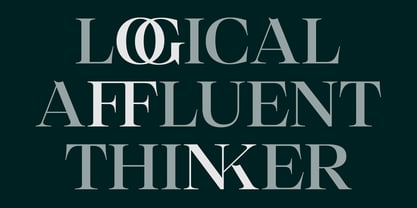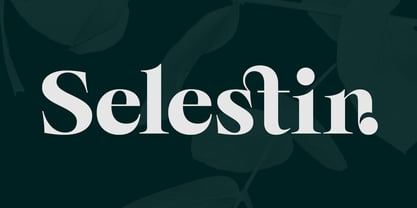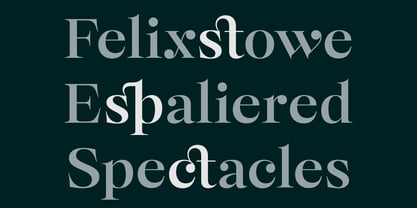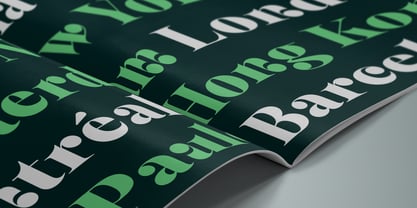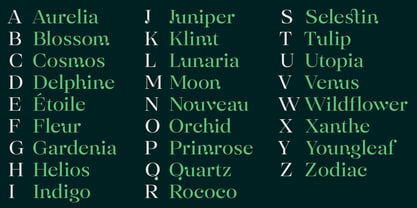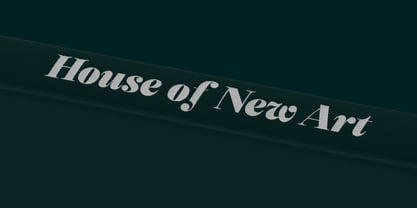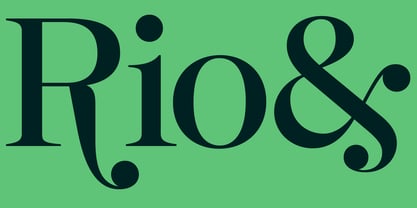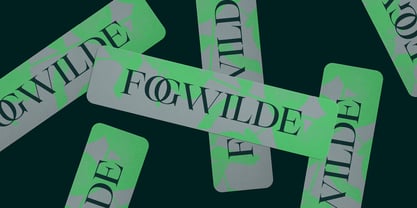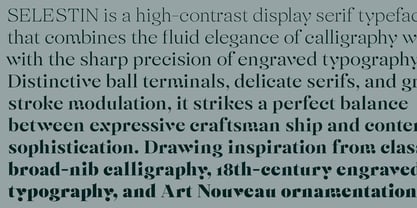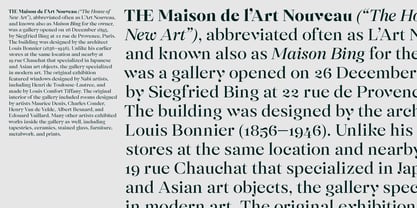
Selestin
by The Northern Block
The Selestin Font Family was designed by Tasos Varipatis and published by The Northern Block. Selestin contains 18 styles and family package options. More about this family
Selestin is a high-contrast display serif typeface that combines the fluid elegance of calligraphy with the sharp precision of engraved typography. With distinctive ball terminals, delicate serifs, and graceful stroke modulation, it strikes a perfect balance between expressive craftsmanship and contemporary sophistication. Drawing inspiration from classic broad-nib calligraphy, 18th-century engraved typography, and Art Nouveau ornamentation, Selestin combines tradition with modernity, making it a versatile and striking choice for editorial design, luxury branding, and high-end packaging.
Designers: Tasos Varipatis
Foundry: The Northern Block